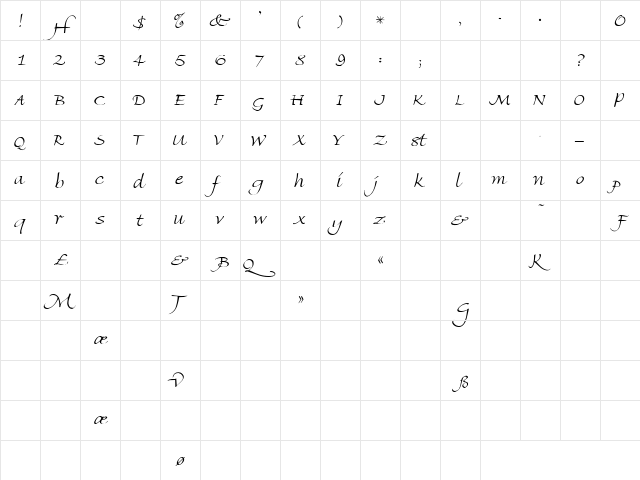
Ambiente Script SSi Light
Design Context for Ambiente Script SSi Typeface
Ambiente Script SSi flows with the natural rhythm of handwritten lettering, making it ideal for designs that call for warmth and personal expression. The delicate stroke weight brings airiness and refinement to layouts.
Font Pairing: Combine Ambiente Script SSi with a simple geometric sans for maximum contrast — the tension between flowing curves and clean structure is a classic typographic pairing.
Pro Tip: Use Ambiente Script SSi for short runs of text — names, titles, or taglines. Extended body copy in script faces tires the eye quickly.